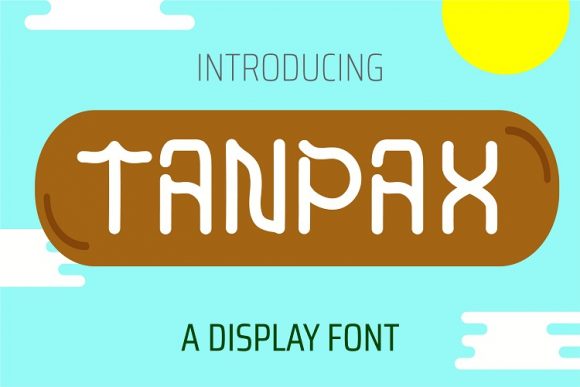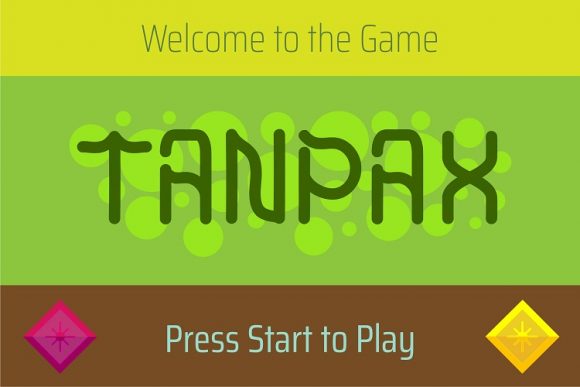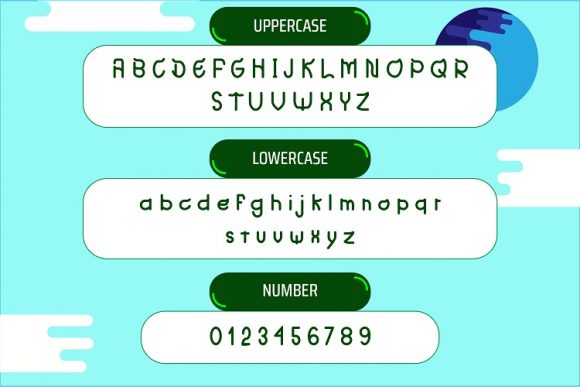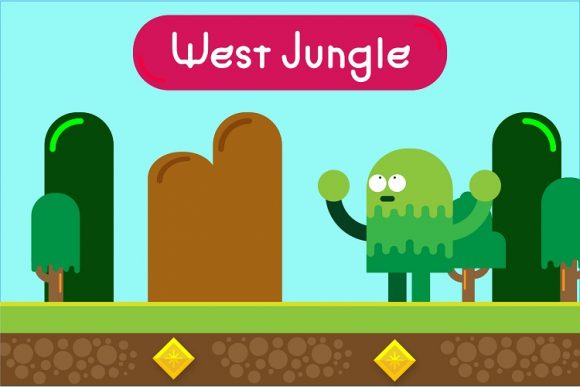
HomePersonal Use FreeTanpax Personal Use Free Tanpax FacebookTwitterPinterestWhatsApp 1 of 4 About Tanpax Font Tanpax is a cool and modern display font. Organic, trendy and neat, this font will instantly match a wide range of informal or casual ideas. DOWNLOAD NOW People also explored Glitch Hearts Font Kolapie Font Satigorius Font Hunterland Rebalion Font The Ending Font Veruttala Font Horbelly Font Colourush Font The Beach Font 166 0 TagsTanpaxTanpax Font Previous articleHallo BettyNext articleEits LEAVE A REPLY Cancel reply Comment: Please enter your comment! Name:* Please enter your name here Email:* You have entered an incorrect email address! Please enter your email address here Website: Save my name, email, and website in this browser for the next time I comment. Personal Use Free Abuget Free Script Personal Use Free Read more about this font Baby Love Personal Use Free Read more about this font Starter Personal Use Free Read more about this font Super Caramel Font Personal Use Free Read more about this font BLOG Where to Buy American Fonts Online in 2024 Where to Buy American Fonts Online: The Ultimate Guide for 2024 Looking for the perfect American font to elevate your design projects? You're in the... Elegant Wedding Invitation Fonts – Handwritten & Script Fonts Exploring Font Trends Using Fonts in Digital Marketing: Tips to Strengthen Your Brand Identity